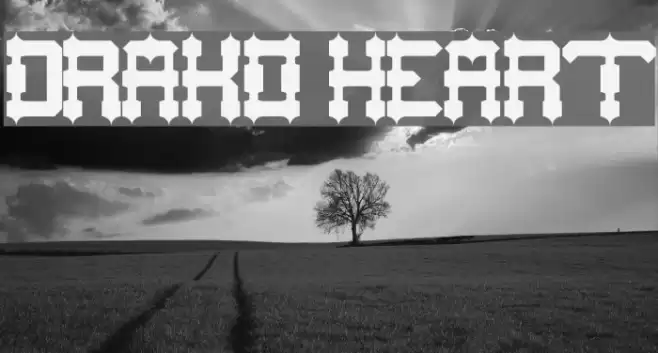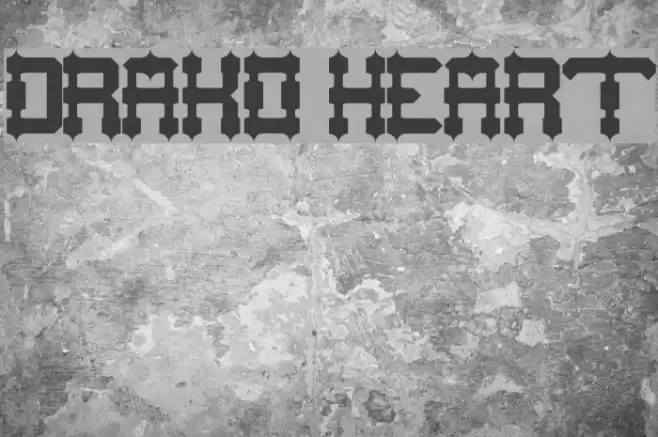
DRAKO HEART Font
DRAKO HEART Description
This font features a bold and striking design with sharp, angular edges and a distinct geometric style. The characters are heavily stylized, resembling a fusion of modern digital aesthetics and traditional Gothic elements. Each letter and number is crafted with a unique, blocky appearance, creating a sense of strength and impact. The font's design is consistent across uppercase, lowercase, and numeric characters, maintaining a cohesive look. The special characters are equally bold, fitting seamlessly with the overall style. This font is ideal for projects that require a strong visual presence and a touch of modern edginess.
A bold, geometric font with Gothic influences and sharp, angular edges from Uncategorized fonts.
- Proposed Projects: Ideal for branding, posters, video game titles, and any project needing a bold, modern aesthetic.